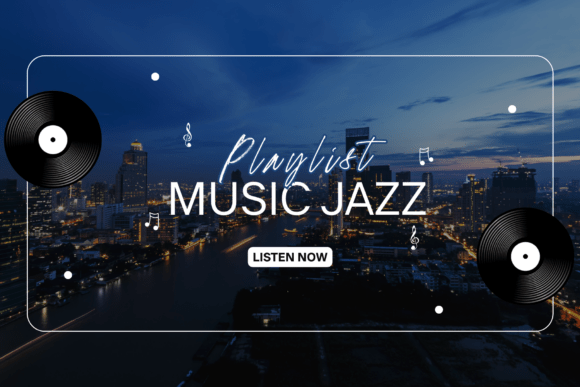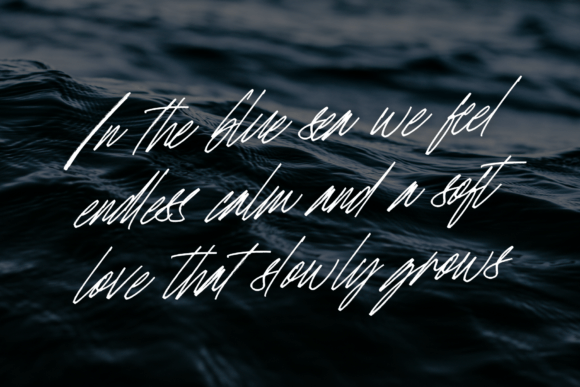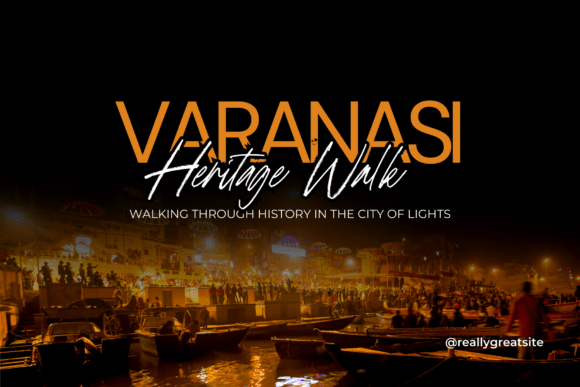
Introduction to Last Friday Font
Last Friday is a stylish handwritten script font with a natural flow and emotional touch.
It features smooth strokes and elegant ligatures that make your designs feel personal, warm, and expressive Perfect for quotes, branding, social media posts, wedding designs, invitations, logos, and modern typography projects.
Key Features of Last Friday Font
Why Choose Last Friday Font?
Last Friday Font offers exceptional quality and versatility, making it a valuable addition to your design toolkit. Whether you’re creating for personal projects or commercial use, Last Friday Font delivers professional results.